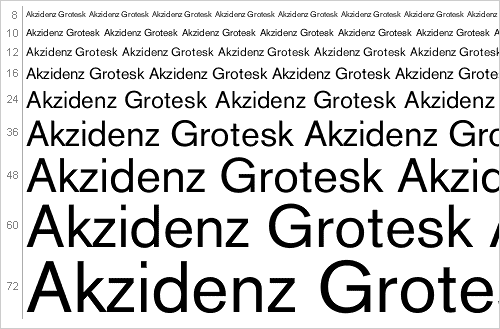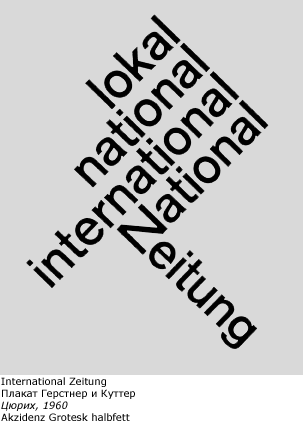
akzidenz grotesk шрифт
Berthold first published Akzidenz-Grotesk in 1898. Originally named “Accidenz-Grotesk” the design originates from Royal Grotesk light by royal type-cutter Ferdinand Theinhardt.